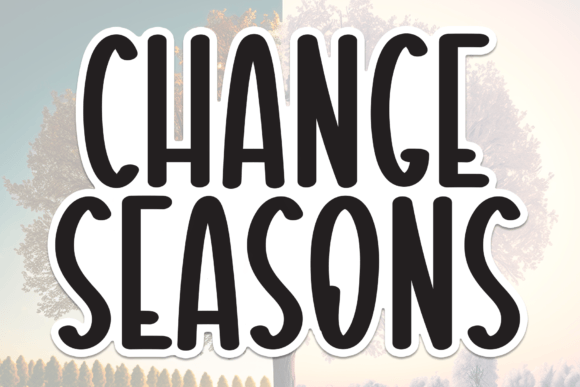
Unlock the Magic of Change Seasons Font
Have you ever sat down with a blank page and a blank mind, waiting for the perfect idea to strike? That’s exactly what happened to me when I stumbled upon the Change Seasons Font. As I scrolled through the beautiful, handwritten characters, I knew I had found something special. The natural and unique style of this font was like a breath of fresh air, and I couldn’t wait to explore its possibilities.
Change Seasons Font is a sweet and friendly handwritten font that’s designed to bring a touch of personality to any design. Whether you’re working on a branding project, a social media campaign, or a personal art piece, this font is the perfect addition to your toolkit. Its versatility and charm make it a valuable asset for designers, allowing you to express your creativity and bring your ideas to life.
Change Seasons Font Key Features
- Unique Characteristics: Change Seasons Font features a unique blend of modern and traditional elements, with intricate details and subtle nuances that make it stand out from other fonts.
Change Seasons Font Review
Overall, I think the Change Seasons Font is a solid choice for designers looking for a display font that evokes a sense of whimsy and playfulness. Here are some things that work well:
- ✨ The font’s unique, hand-drawn style gives it a lot of character and makes it stand out in a crowded market.
- ✨ The font’s flexibility in terms of size and style makes it easy to use in a variety of contexts, from headlines to body text.
- ✨ The font’s subtle texture and imperfections add to its charm and make it feel more organic and natural.
- ⚠️ The font may not be suitable for use in large blocks of text, as its whimsical style can become overwhelming if used extensively.
- ⚠️ The font’s imperfections can also make it more difficult to read in certain contexts, particularly for people with vision impairments.
Overall, I think the Change Seasons Font is a great choice for designers who want to add a touch of personality to their projects. While it may have some limitations, its unique style and flexibility make it a valuable addition to any designer’s toolkit.
Change Seasons Font is ideal for seasonal and holiday-themed designs, such as Christmas, Halloween, or Thanksgiving invitations, cards, and posters.
Use the font to add a touch of whimsy and playfulness to your designs, but be mindful of the font’s complexity and use it sparingly to avoid overwhelming the viewer.